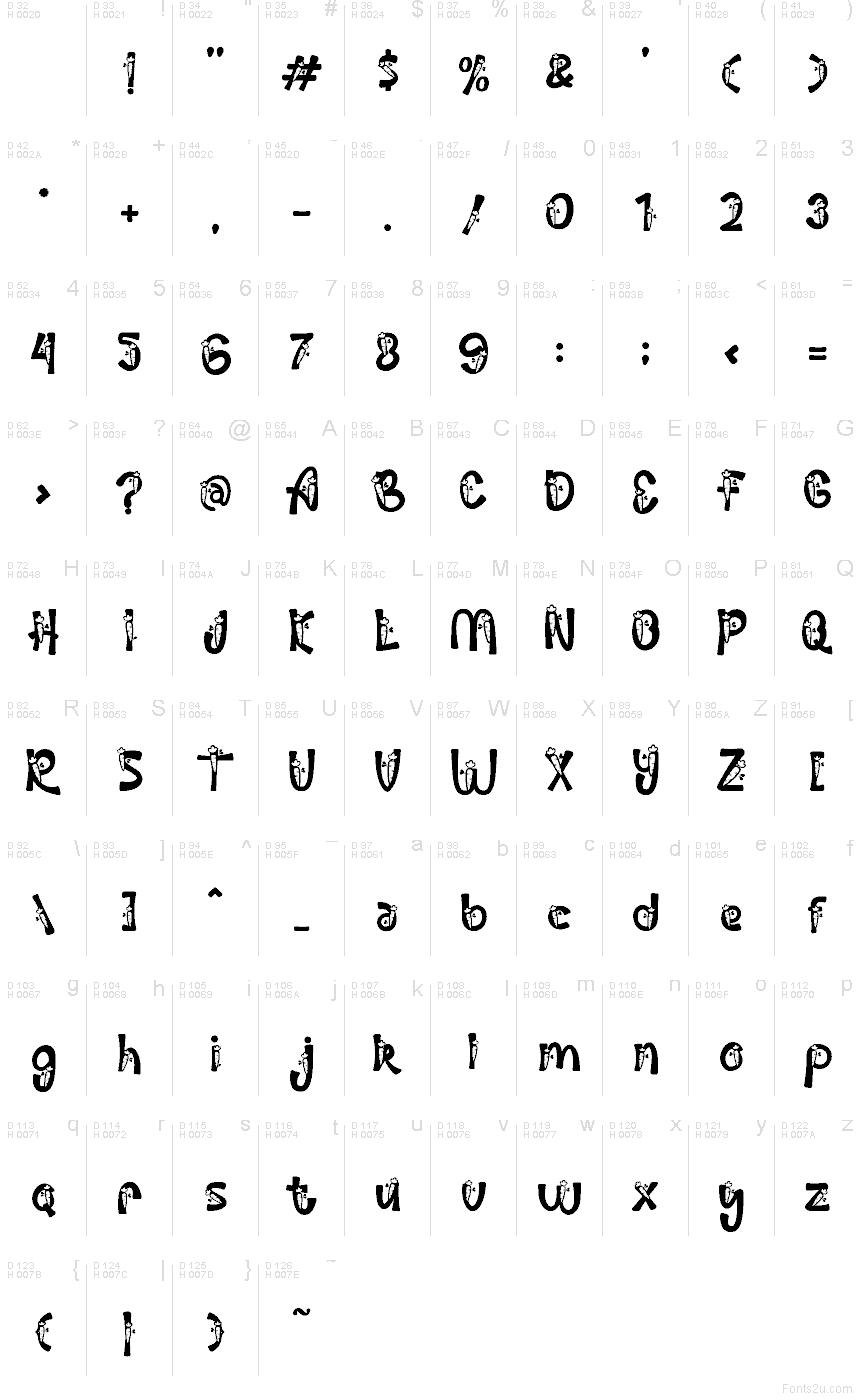
Palm Sunday Carrot
Palm Sunday Carrot font by Putracetol Studio is a free Easter display font with hand-drawn letterforms shaped by carrot and leaf motifs. The rounded, uneven strokes and small decorative sprouts give it a crafted seasonal feel without making it look overly formal.
Palm Sunday Carrot works well for Easter invitations, spring event posters, greeting cards, bakery packaging, scrapbook titles, and holiday labels. Its themed details make it a natural fit whenever you want the lettering itself to carry the seasonal accent, especially on short phrases, decorative headers, and craft-related branding.